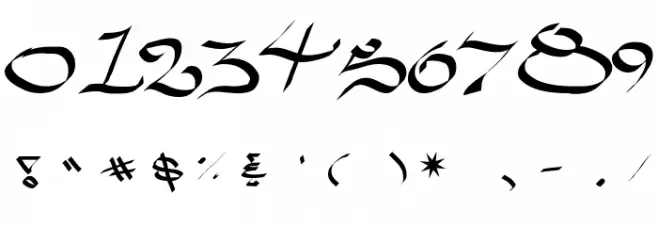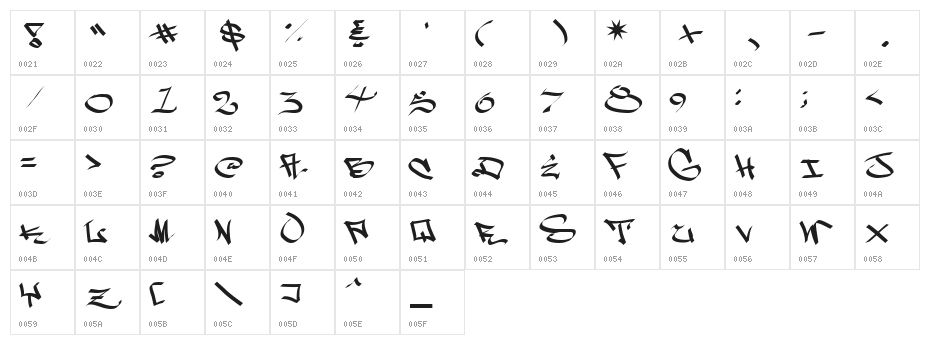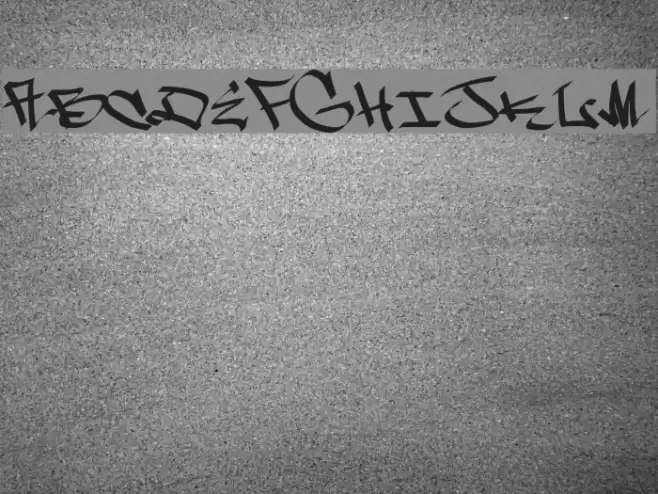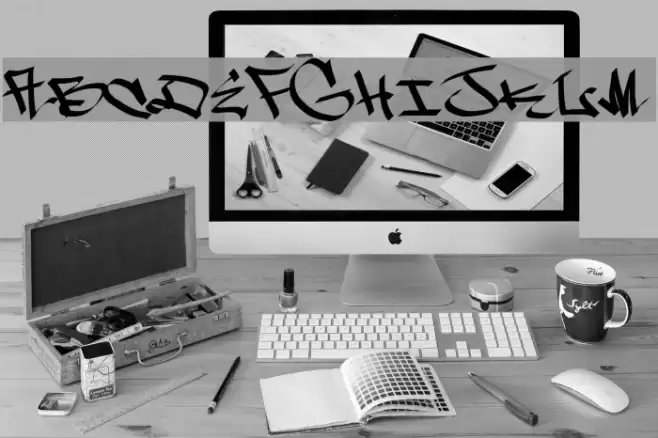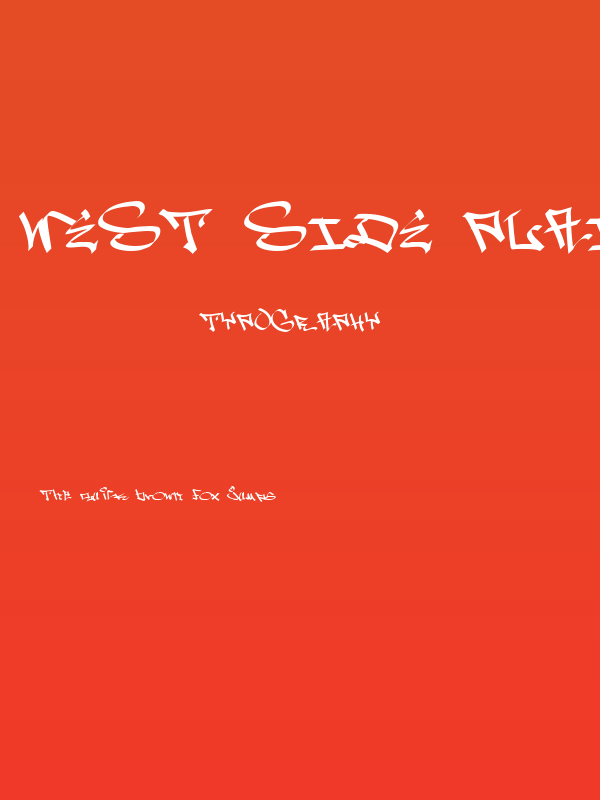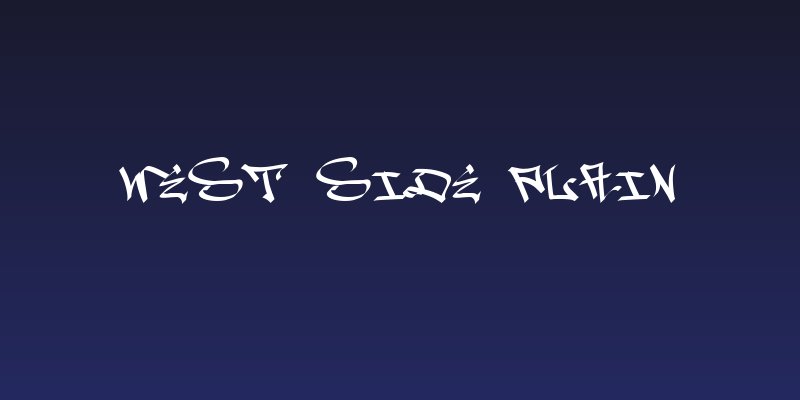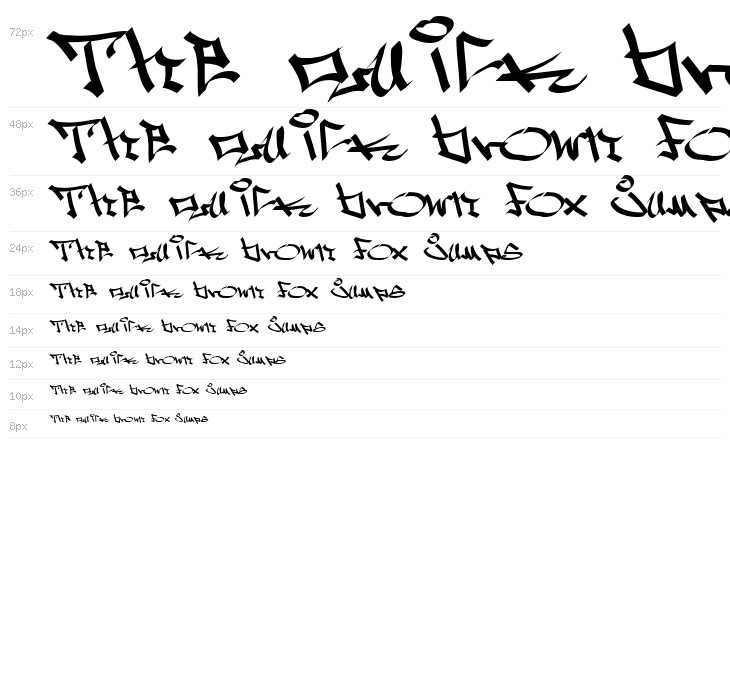
West Side Plain Font
West Side Plain Description
This font features a bold and edgy style with sharp, angular lines and a graffiti-inspired aesthetic. The characters are highly stylized, with exaggerated curves and points that give it a dynamic and rebellious feel. The uppercase and lowercase letters maintain a consistent theme, while the numerals and special characters complement the overall design. This font is perfect for projects that require a strong, urban vibe, such as street art, music album covers, or edgy branding materials.
| Overall Style | Urban, Rebellious, Edgy |
| Proposed Projects | Ideal for street art, music album covers, edgy branding, and urban-themed designs. |